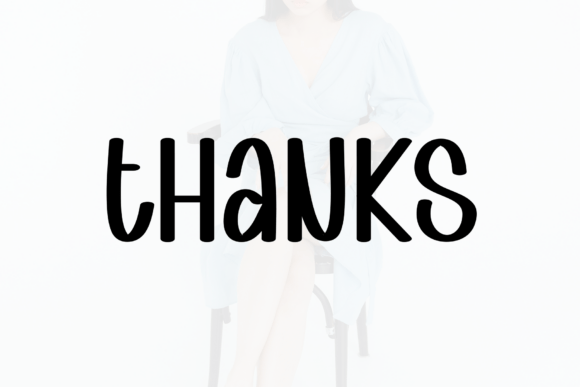
Adding a Touch of Whimsy to Your Designs
Have you ever stared at a blank canvas, feeling stuck and uninspired? The blank page can be intimidating, but it’s also an opportunity to let your creativity shine. For many designers, the key to unlocking their full potential lies in the perfect font – one that adds a touch of personality and charm to their work.
Enter the Delicious Girl Font, a sweet and beautiful handwritten font that’s sure to delight. With its playful, dancing characters, this font is perfect for adding a cozy accent to any design project. Whether you’re creating a blog post, social media graphics, or even a wedding invitation, the Delicious Girl Font is sure to bring a smile to your readers’ faces.
As a designer, you know the importance of finding the right font to convey your message and capture your audience’s attention. The Delicious Girl Font is a valuable addition to any designer’s toolkit, offering a unique and eye-catching way to express yourself and connect with your audience.
Delicious Girl Font Key Features
- Font Family: Delicious Girl, a unique and playful sans-serif font designed for feminine and modern designs.
- Unique Characteristics: The font features rounded edges, elegant curves, and subtle flourishes, giving it a distinctive and feminine touch.
Delicious Girl Font Review
Overall, I think the Delicious Girl Font is a great addition to any design project. Here are some of its standout features:
- ✨ Elegant and feminine feel: This font is perfect for designs that need a touch of sweetness and femininity.
- ✨ Highly customizable: With its wide range of font styles and sizes, you can tailor the Delicious Girl Font to fit your design needs.
- ✨ Versatile: This font can be used for various design projects, from wedding invitations to fashion branding.
- ⚠️ Limited legibility: In certain font sizes or styles, the Delicious Girl Font can be difficult to read, especially in smaller sizes.
- ⚠️ Limited support for non-Latin scripts: This font may not be compatible with non-Latin scripts, which could limit its use in certain design projects.
Overall, I think the Delicious Girl Font is a great choice for designers who need a feminine and elegant font. While it has some limitations, its versatility and customizability make it a valuable addition to any design project.
Tips for Getting the Most Out of Delicious Girl Font
Use Delicious Girl Font for designs that require a playful, cursive touch, such as:
- Invitations and event graphics
- Children’s book illustrations
- Food and beverage branding
Remember to pair Delicious Girl Font with complementary fonts and colors to create a visually appealing design.
Q: Is the Delicious Girl Font available in different weights and styles?
Yes, the Delicious Girl Font is available in multiple weights, including Light, Regular, Bold, and Extra Bold. Additionally, the font includes various styles, such as Italic and Oblique. You can use these different weights and styles to create a visually appealing and professional design.